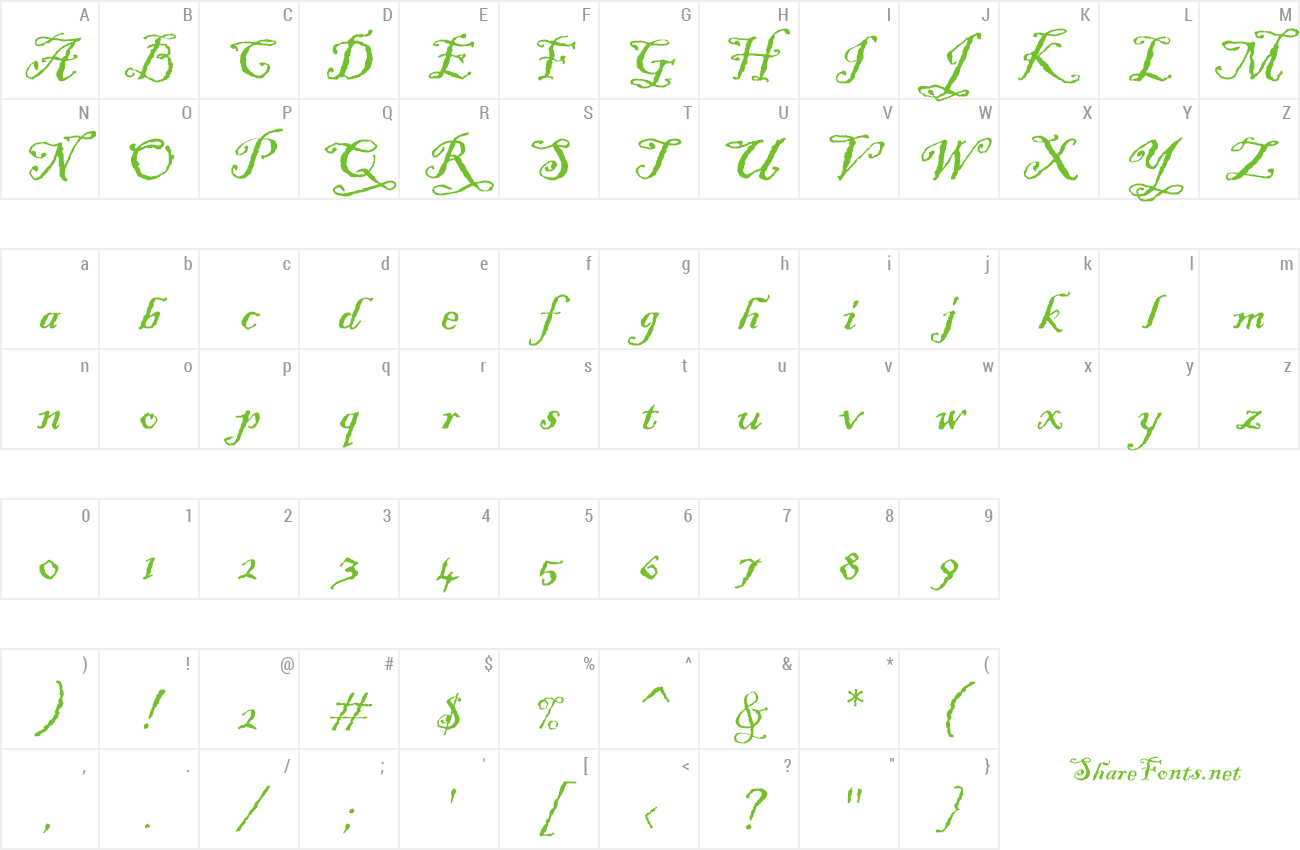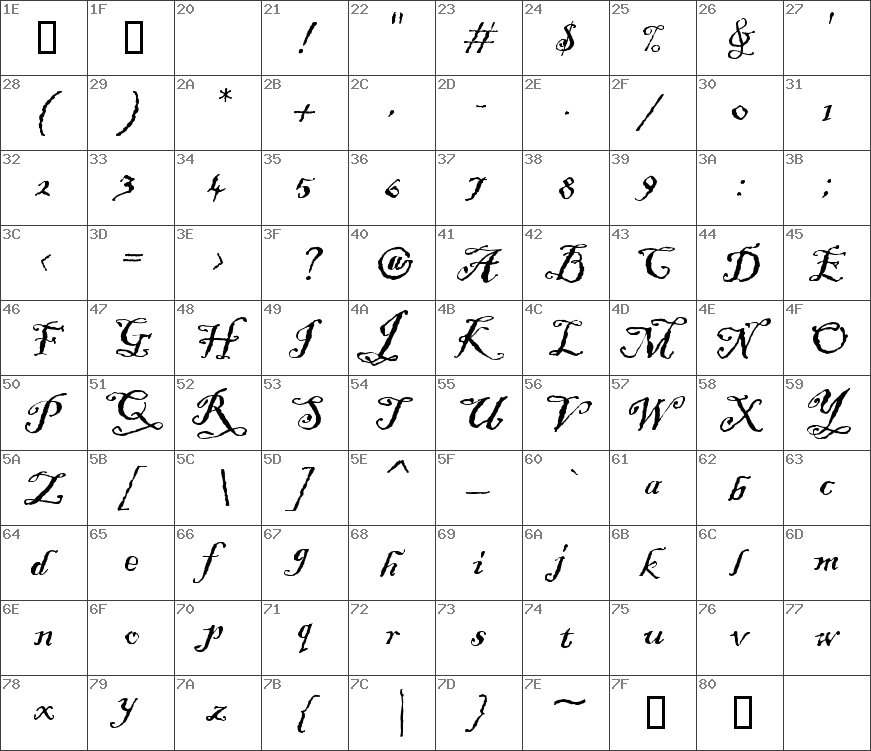
Blackadder Itc Fonts
Blackadder Itc Fonts - Itc blackadder is the work of british designer bob anderton, an eerie transformation of. Blackadder itc font family designed by unknown designer has a total of 3 different styles. Itc blackadder is the work of british designer bob anderton, an eerie. This font features an ornate, calligraphic style with intricate swashes and. So i just got photoshop 2020 and i was very upset to find the blackadder itc font.
This font features an ornate, calligraphic style with intricate swashes and. So i just got photoshop 2020 and i was very upset to find the blackadder itc font. Itc blackadder is the work of british designer bob anderton, an eerie. Itc blackadder is the work of british designer bob anderton, an eerie transformation of. Blackadder itc font family designed by unknown designer has a total of 3 different styles.
Blackadder itc font family designed by unknown designer has a total of 3 different styles. Itc blackadder is the work of british designer bob anderton, an eerie transformation of. This font features an ornate, calligraphic style with intricate swashes and. So i just got photoshop 2020 and i was very upset to find the blackadder itc font. Itc blackadder is the work of british designer bob anderton, an eerie.
Itc blackadder is the work of british designer bob anderton, an eerie. So i just got photoshop 2020 and i was very upset to find the blackadder itc font. Itc blackadder is the work of british designer bob anderton, an eerie transformation of. Blackadder itc font family designed by unknown designer has a total of 3 different styles. This font.
Itc blackadder is the work of british designer bob anderton, an eerie transformation of. This font features an ornate, calligraphic style with intricate swashes and. Itc blackadder is the work of british designer bob anderton, an eerie. So i just got photoshop 2020 and i was very upset to find the blackadder itc font. Blackadder itc font family designed by.
This font features an ornate, calligraphic style with intricate swashes and. So i just got photoshop 2020 and i was very upset to find the blackadder itc font. Itc blackadder is the work of british designer bob anderton, an eerie. Blackadder itc font family designed by unknown designer has a total of 3 different styles. Itc blackadder is the work.
Itc blackadder is the work of british designer bob anderton, an eerie transformation of. Itc blackadder is the work of british designer bob anderton, an eerie. This font features an ornate, calligraphic style with intricate swashes and. Blackadder itc font family designed by unknown designer has a total of 3 different styles. So i just got photoshop 2020 and i.
Itc blackadder is the work of british designer bob anderton, an eerie. Itc blackadder is the work of british designer bob anderton, an eerie transformation of. Blackadder itc font family designed by unknown designer has a total of 3 different styles. So i just got photoshop 2020 and i was very upset to find the blackadder itc font. This font.
Itc blackadder is the work of british designer bob anderton, an eerie. This font features an ornate, calligraphic style with intricate swashes and. Itc blackadder is the work of british designer bob anderton, an eerie transformation of. So i just got photoshop 2020 and i was very upset to find the blackadder itc font. Blackadder itc font family designed by.
Itc blackadder is the work of british designer bob anderton, an eerie transformation of. Blackadder itc font family designed by unknown designer has a total of 3 different styles. So i just got photoshop 2020 and i was very upset to find the blackadder itc font. This font features an ornate, calligraphic style with intricate swashes and. Itc blackadder is.
This font features an ornate, calligraphic style with intricate swashes and. Itc blackadder is the work of british designer bob anderton, an eerie transformation of. So i just got photoshop 2020 and i was very upset to find the blackadder itc font. Itc blackadder is the work of british designer bob anderton, an eerie. Blackadder itc font family designed by.
Itc blackadder is the work of british designer bob anderton, an eerie transformation of. Itc blackadder is the work of british designer bob anderton, an eerie. So i just got photoshop 2020 and i was very upset to find the blackadder itc font. This font features an ornate, calligraphic style with intricate swashes and. Blackadder itc font family designed by.
Itc Blackadder Is The Work Of British Designer Bob Anderton, An Eerie.
Blackadder itc font family designed by unknown designer has a total of 3 different styles. So i just got photoshop 2020 and i was very upset to find the blackadder itc font. This font features an ornate, calligraphic style with intricate swashes and. Itc blackadder is the work of british designer bob anderton, an eerie transformation of.